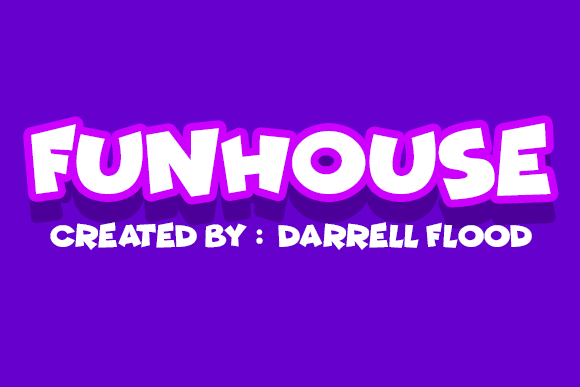
Unleash an Explosion of Joy and Excitement into Your Designs with Funhouse Font: A Joyous Cartoon-inspired Creation
Embark on a fantastical adventure with Funhouse font, a delightful display font that will transform your creative projects into a visual wonderland. Inspired by the whimsical charm of amusement parks, this font captivates the essence of fun and excitement, evoking a sense of childlike wonder.
The Funhouse font is the brainchild of Darrell Flood, a renowned font designer renowned for his imaginative and playful creations. Drawing inspiration from the vibrant colors and larger-than-life characters that inhabit amusement parks, Darrell has crafted a font that encapsulates the spirit of joy and exhilaration.
With its bold strokes, rounded edges, and playful character, the Funhouse font is a perfect choice for a wide range of design projects. Create eye-catching posters, captivating logos, whimsical illustrations, vibrant social media graphics, and more. The possibilities are endless with this versatile font.
Immerse yourself in the Spectacular World of Funhouse:
* **Unleash Your Creativity:** Let your imagination run wild as you explore the boundless creative possibilities offered by the Funhouse font. Express yourself uniquely and authentically, captivating your audience with designs that burst with personality.
* **Fun for All Occasions:** Whether you're crafting invitations for a birthday party, designing posters for a school event, or creating graphics for a carnival, the Funhouse font adds an extra layer of excitement and cheer to any project.
* **Engage and Delight Your Audience:** Make your designs irresistible with the Funhouse font. Its cheerful and playful nature instantly grabs attention, engaging your audience and leaving a lasting impression.
* **Capture the Attention of Children:** The Funhouse font is designed to appeal to children's imaginations, making it an excellent choice for projects targeting a younger audience. Its whimsical charm will ignite their excitement and capture their hearts.